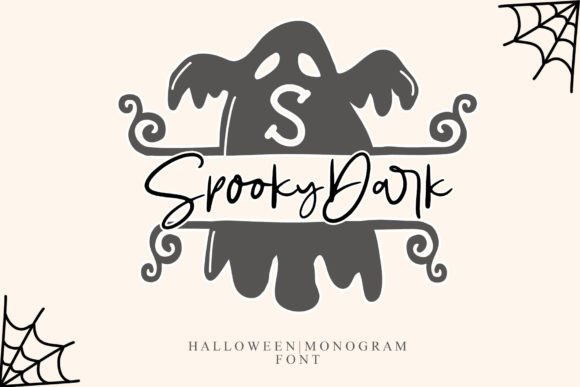
Step into the realm of Halloween enchantment with Spooky Dark, a font that evokes the mystical essence of the haunted season. Let your imagination run wild as you explore the intricate details and whimsical curves of this captivating decorative font.
With Spooky Dark, you hold the key to unlocking a treasure trove of creative possibilities. Its playful, eye-catching characters will add a touch of spooktacular charm to any Halloween-inspired project. Design invitations that send shivers down the spine, create posters that transport you to haunted mansions, or craft T-shirts that exude an eerie allure.
This font's versatility extends beyond Halloween, making it a haunting companion for any project seeking a touch of dark whimsy. Add a spine-chilling twist to birthday cards, conjure up otherworldly invitations, or let your imagination run rampant as you create captivating logos and branding materials that linger in the minds of your audience.
Unleash your inner artist and let Spooky Dark take you on a journey through the enchanted forest of your imagination. Whether you're designing for a Halloween party, a horror movie marathon, or simply seeking a font that captures the magic of the macabre, Spooky Dark is your perfect companion.
Don't let this haunting beauty slip through your fingers. Embrace the darkness and succumb to the allure of Spooky Dark. Let your creativity run wild as you weave tales of mystery and enchantment, leaving your audience spellbound and yearning for more.